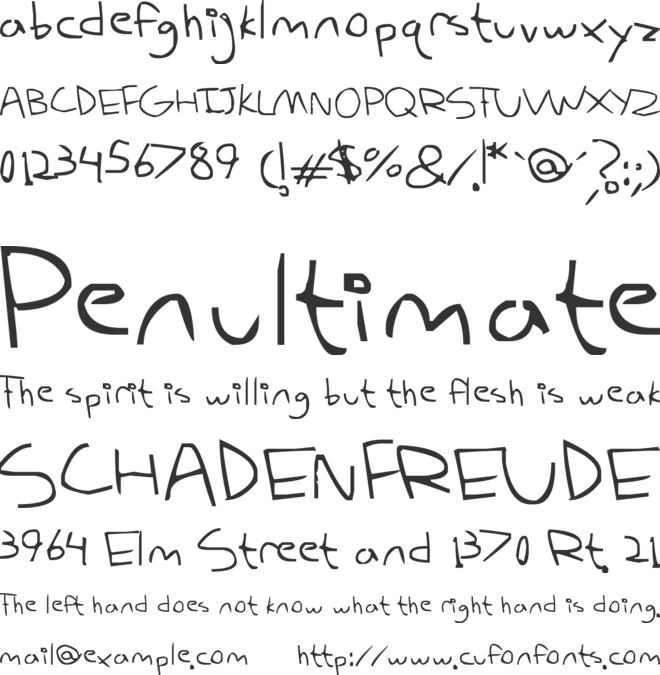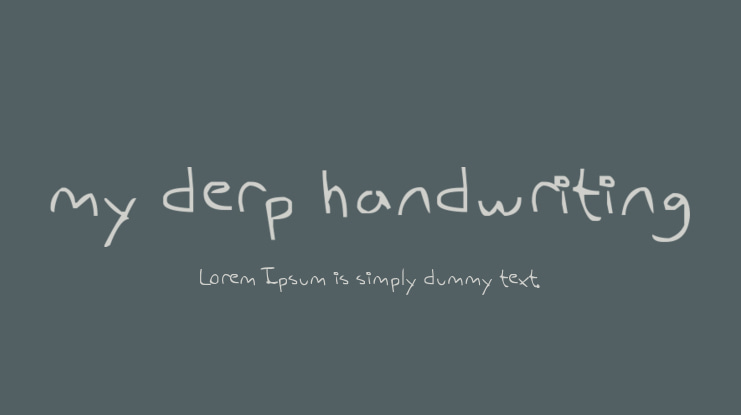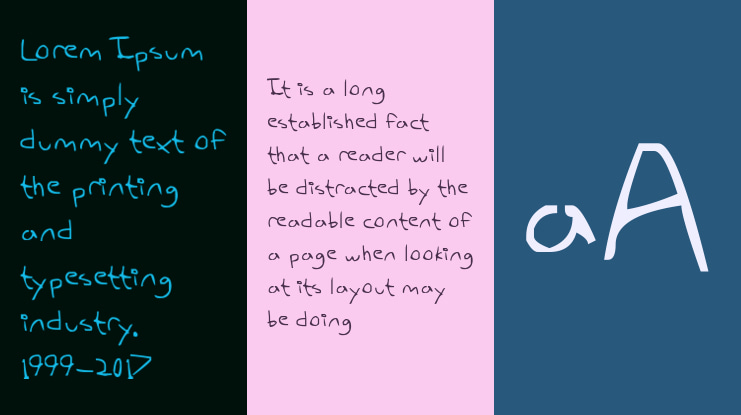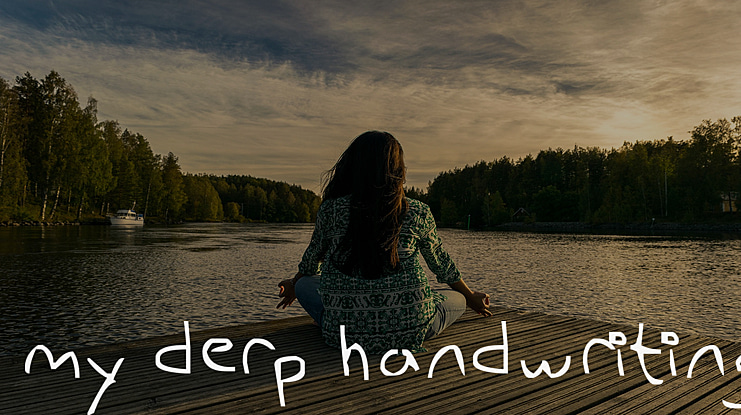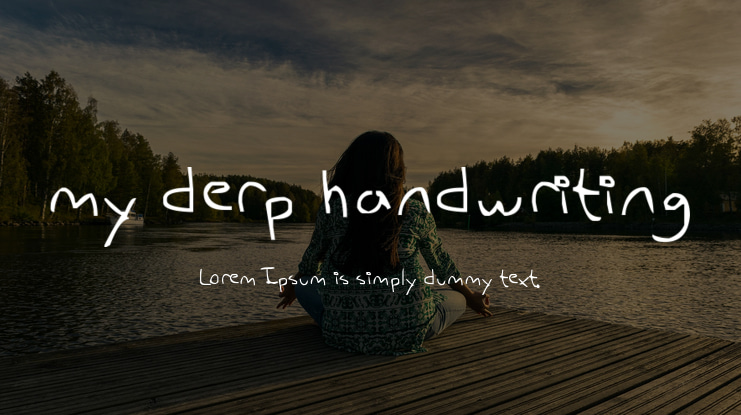
my derp handwriting Font
We like the youthfulness and simplicity of this handwriting font. Made at FontPanda.com. They will make a font from your handwriting for free. Enjoy!